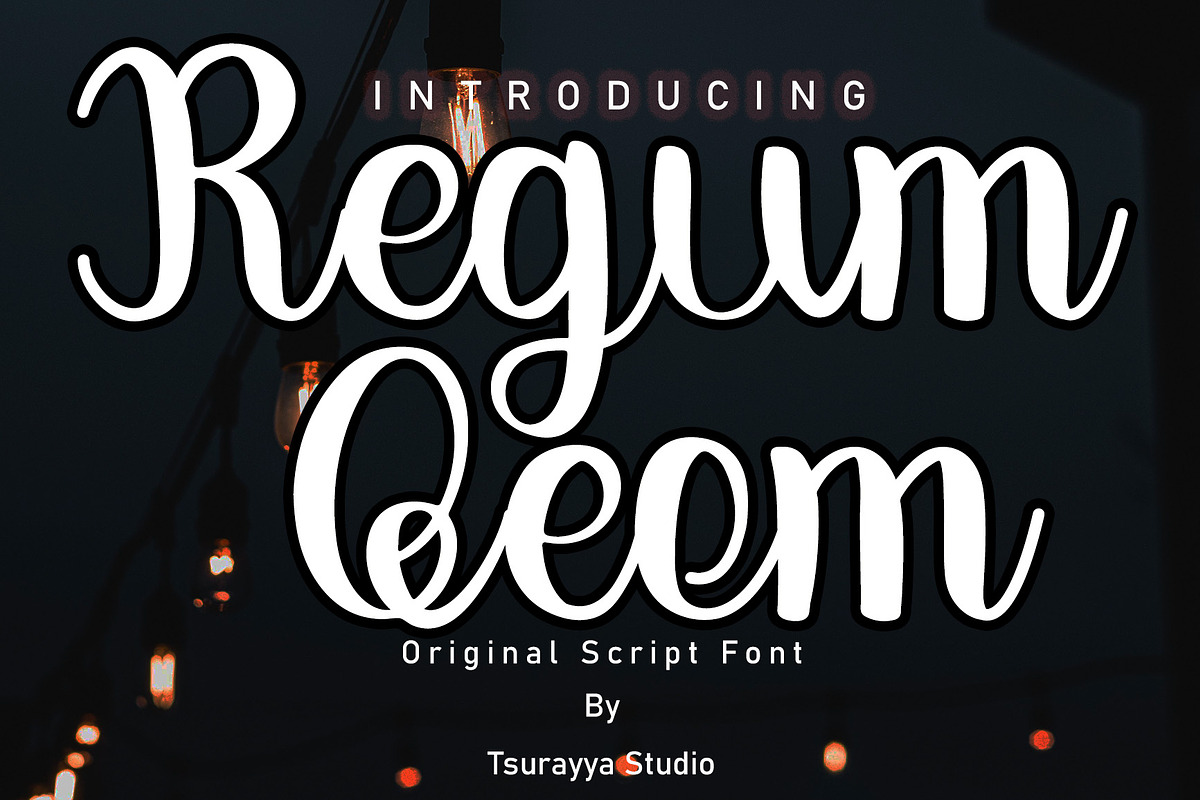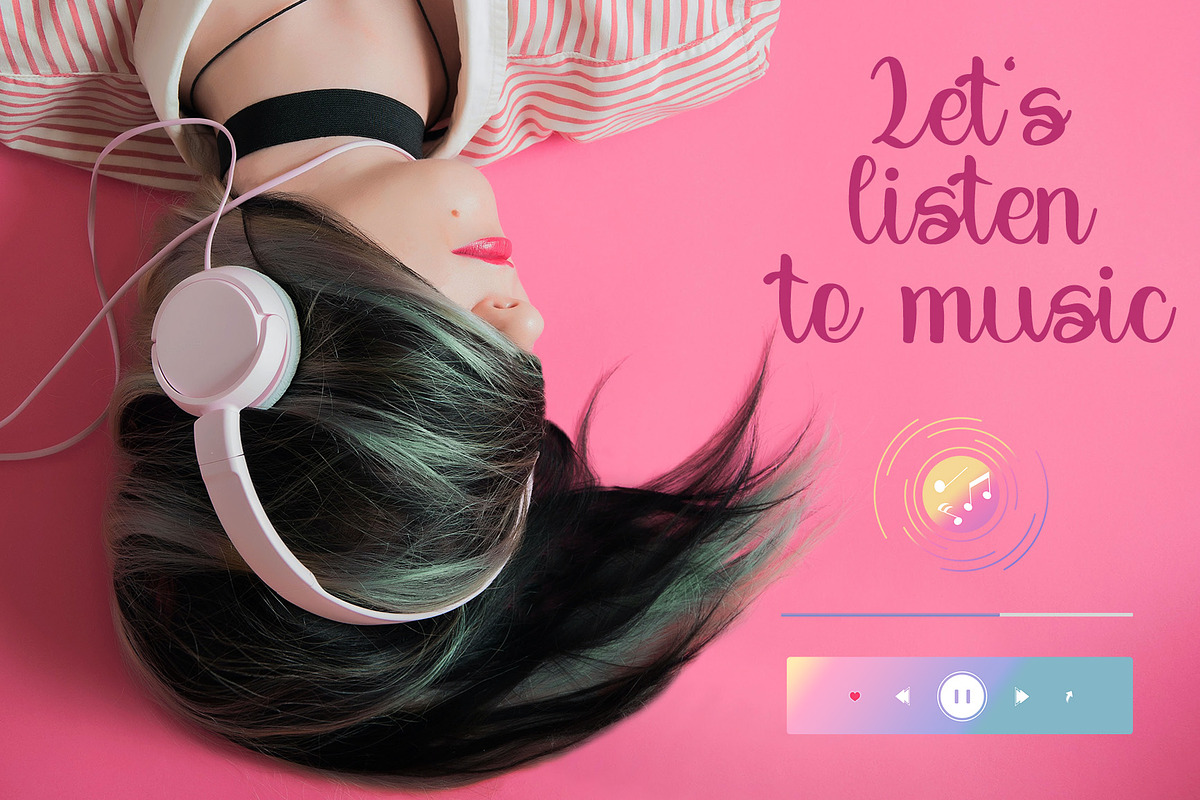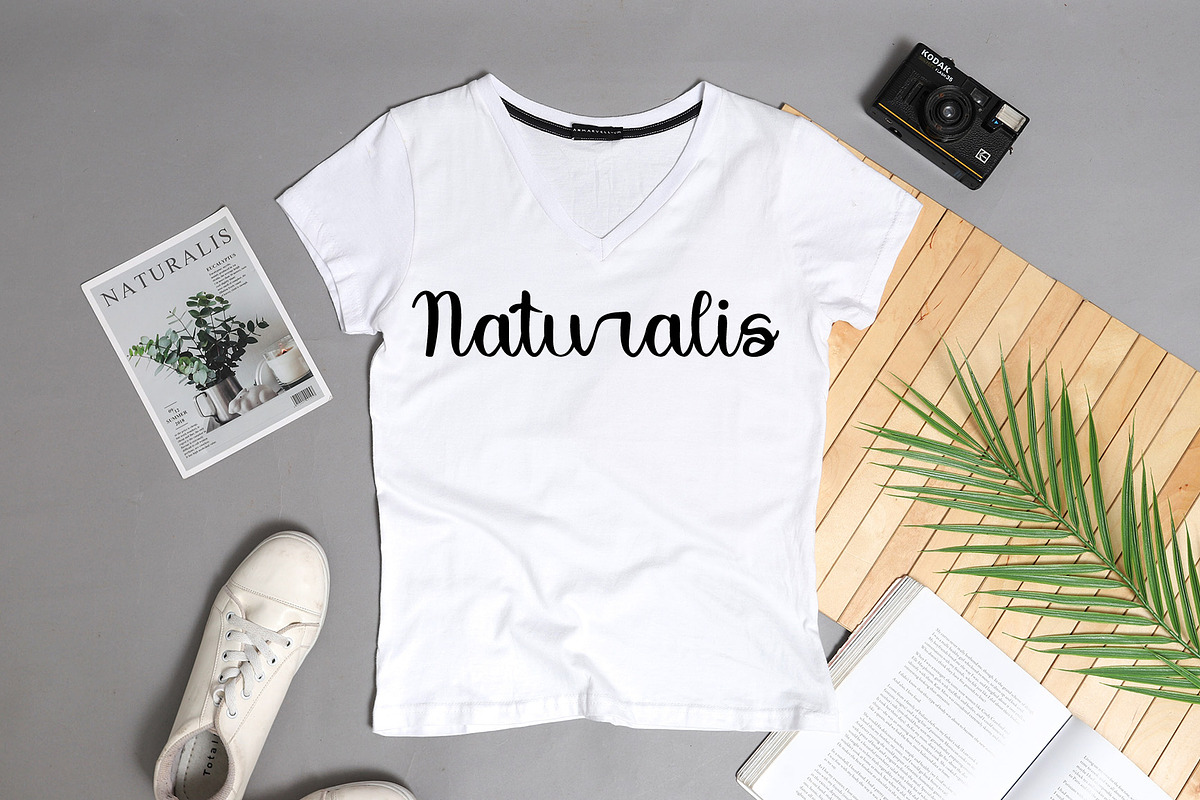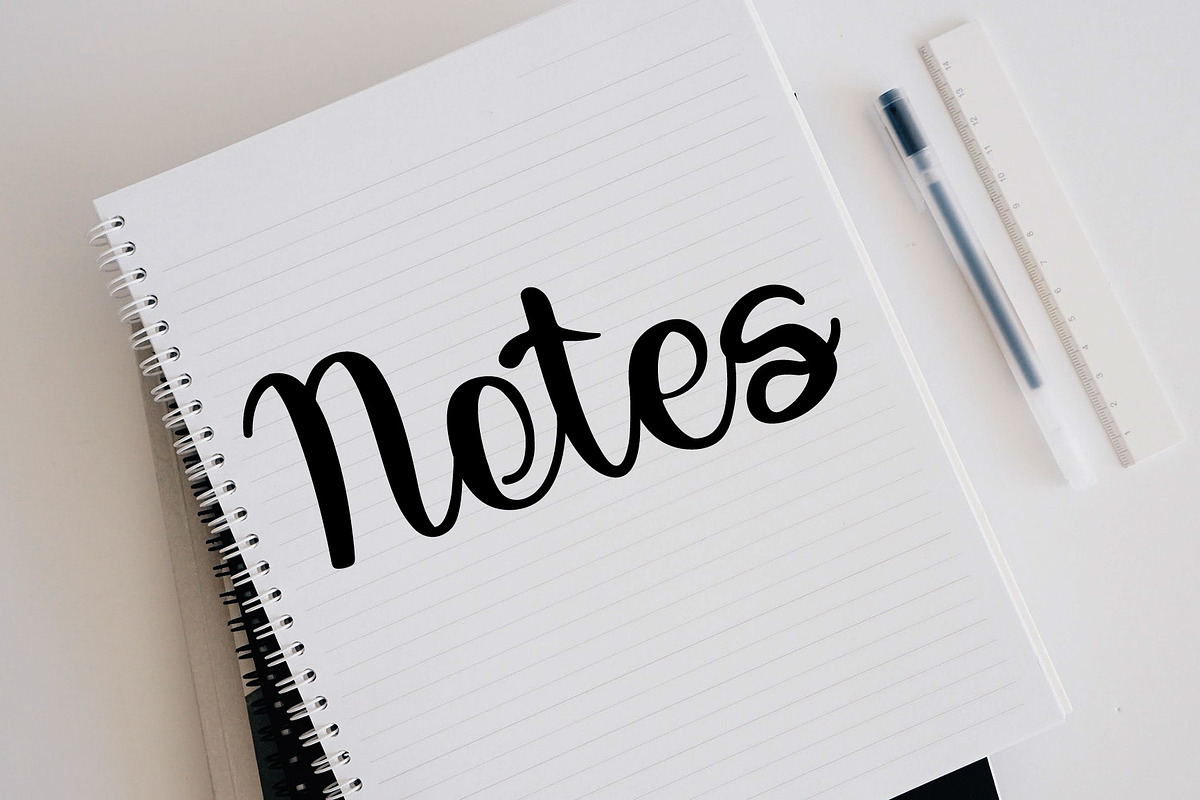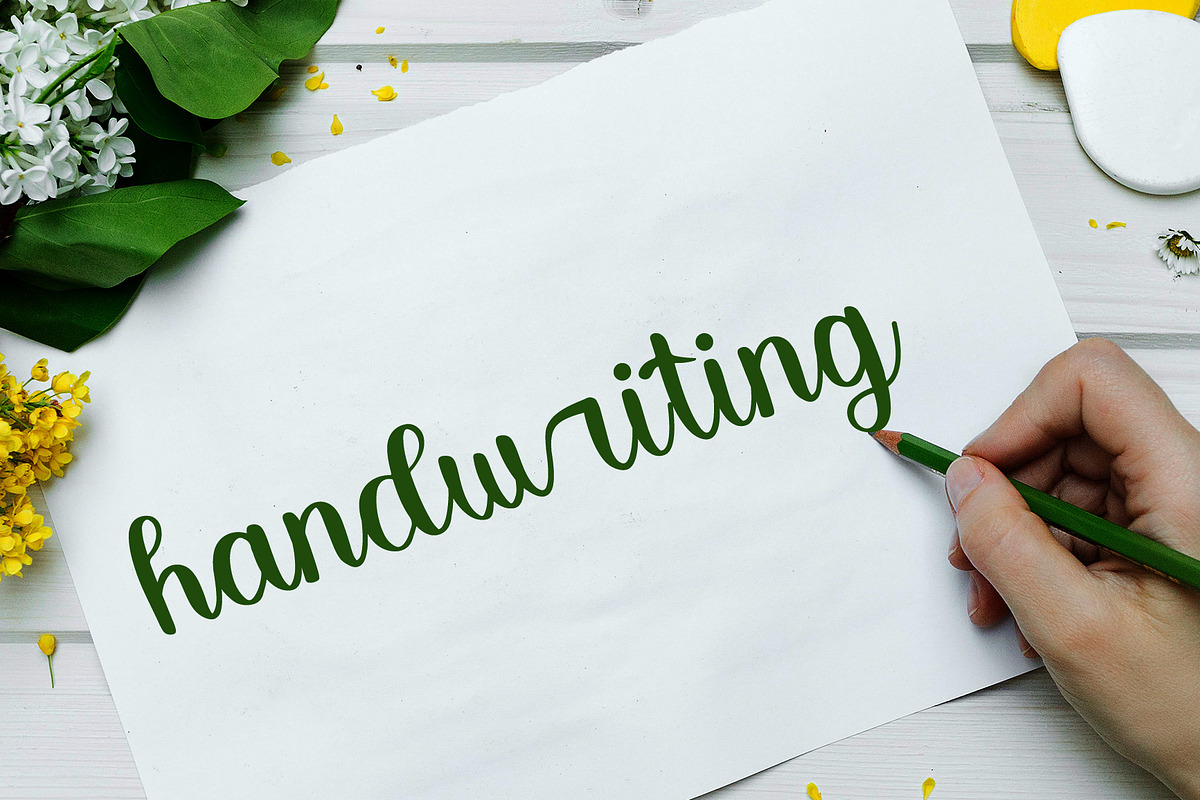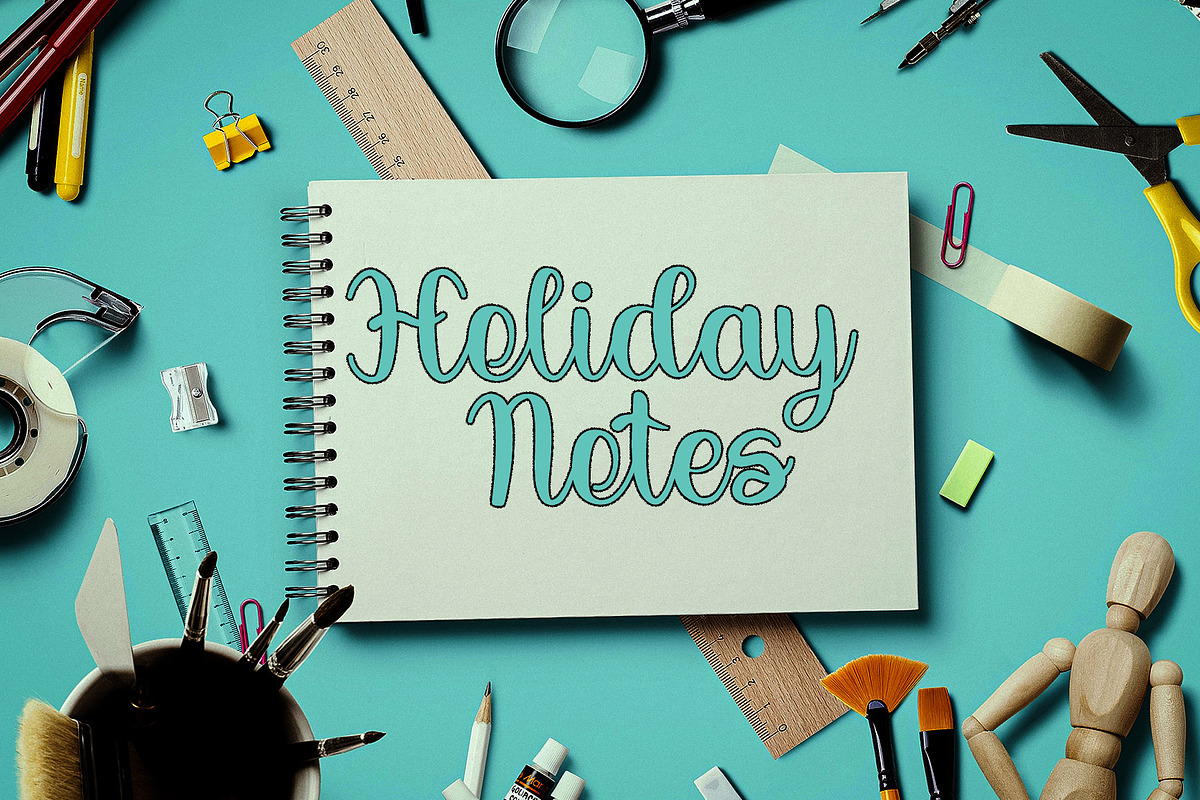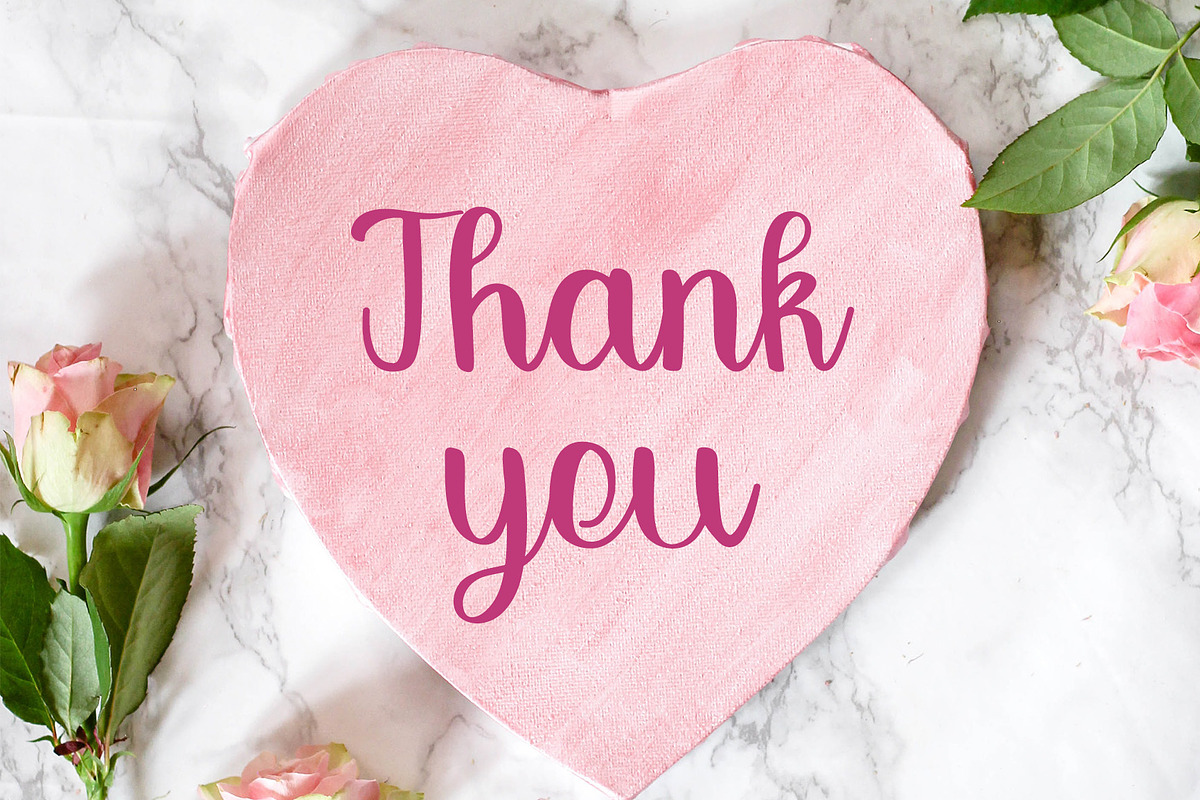
Regum qeon
Regum Qeom feels equally charming and elegant. It looks stunning on wedding invitations, thank you cards, quotes, greeting cards, logos, business cards, and every other design which needs a handwritten touch.